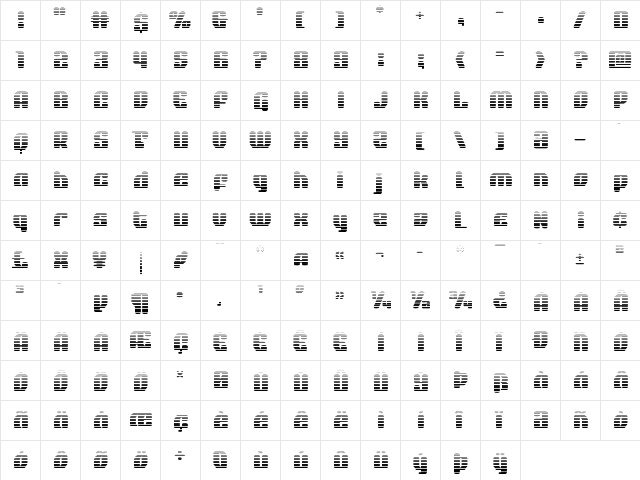
Quasar Pacer Gradient Regular
Design Context for Quasar Pacer Gradient Typeface
Quasar Pacer Gradient is a composed and adaptable typeface that performs quietly and consistently across a wide range of design contexts.